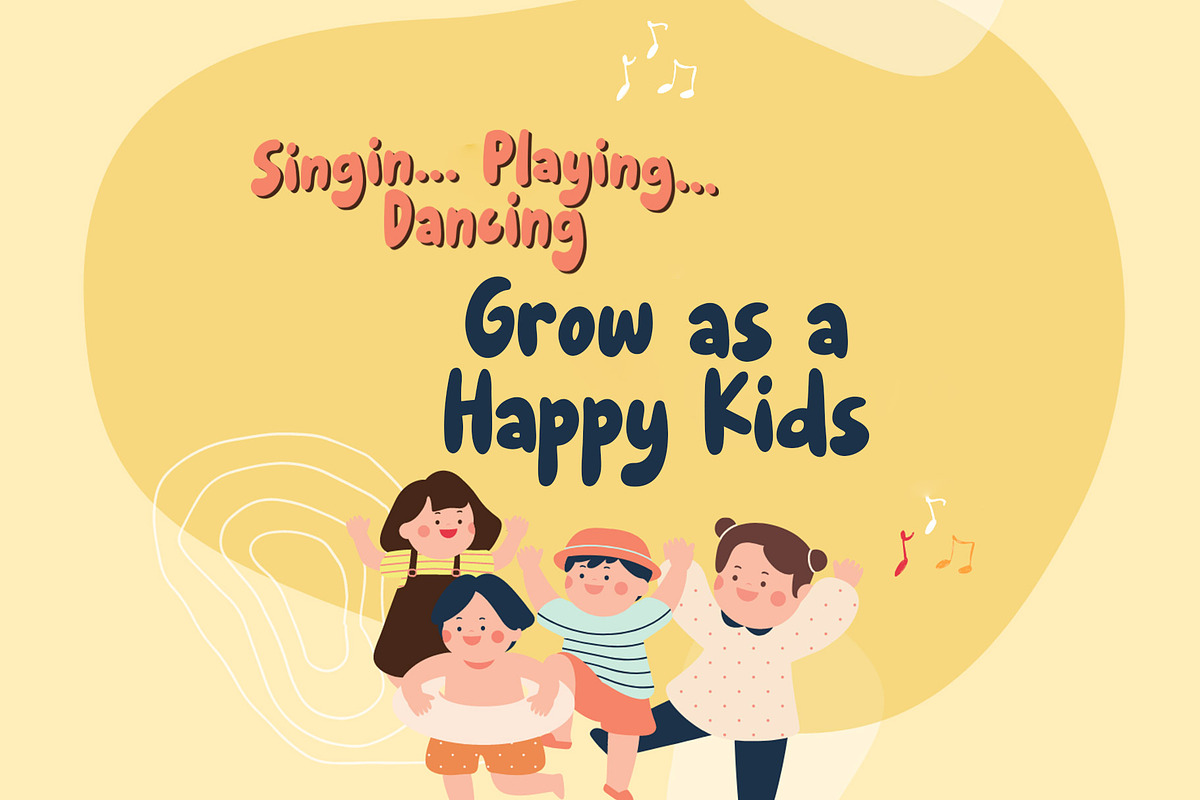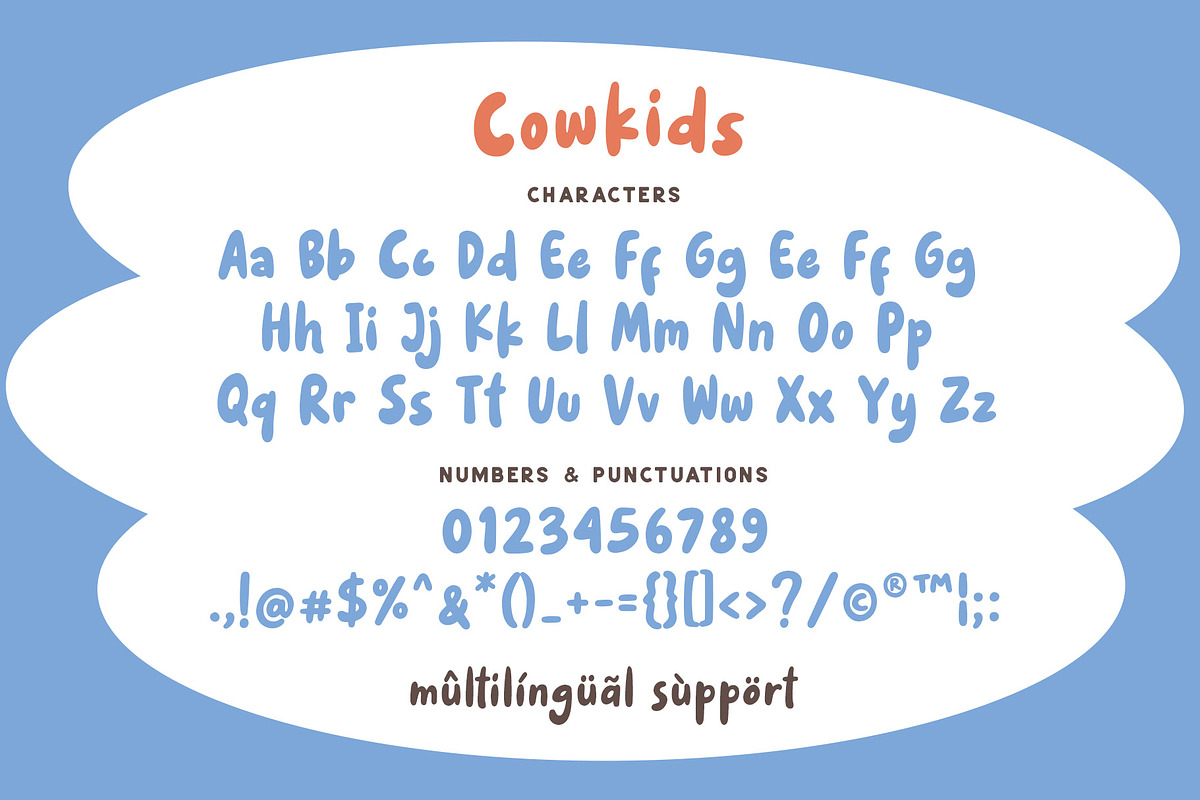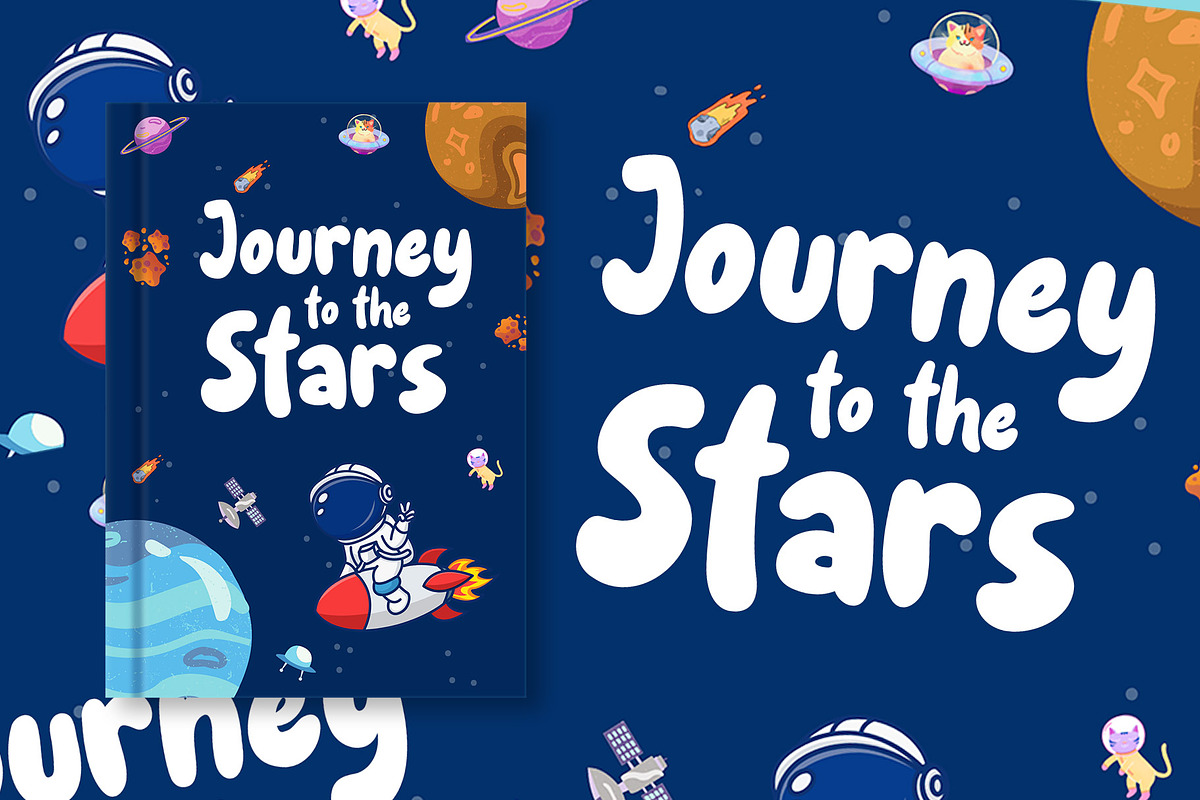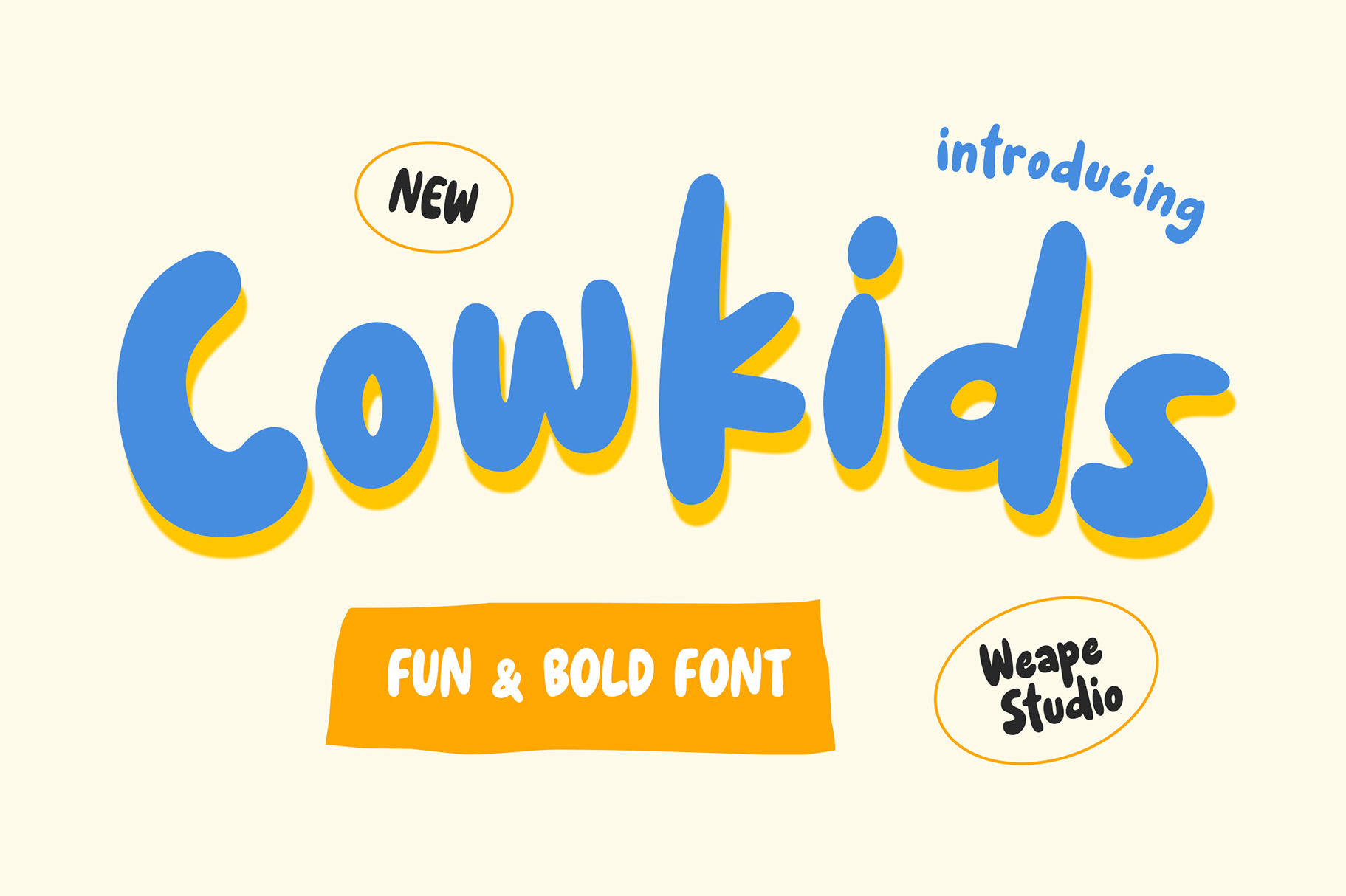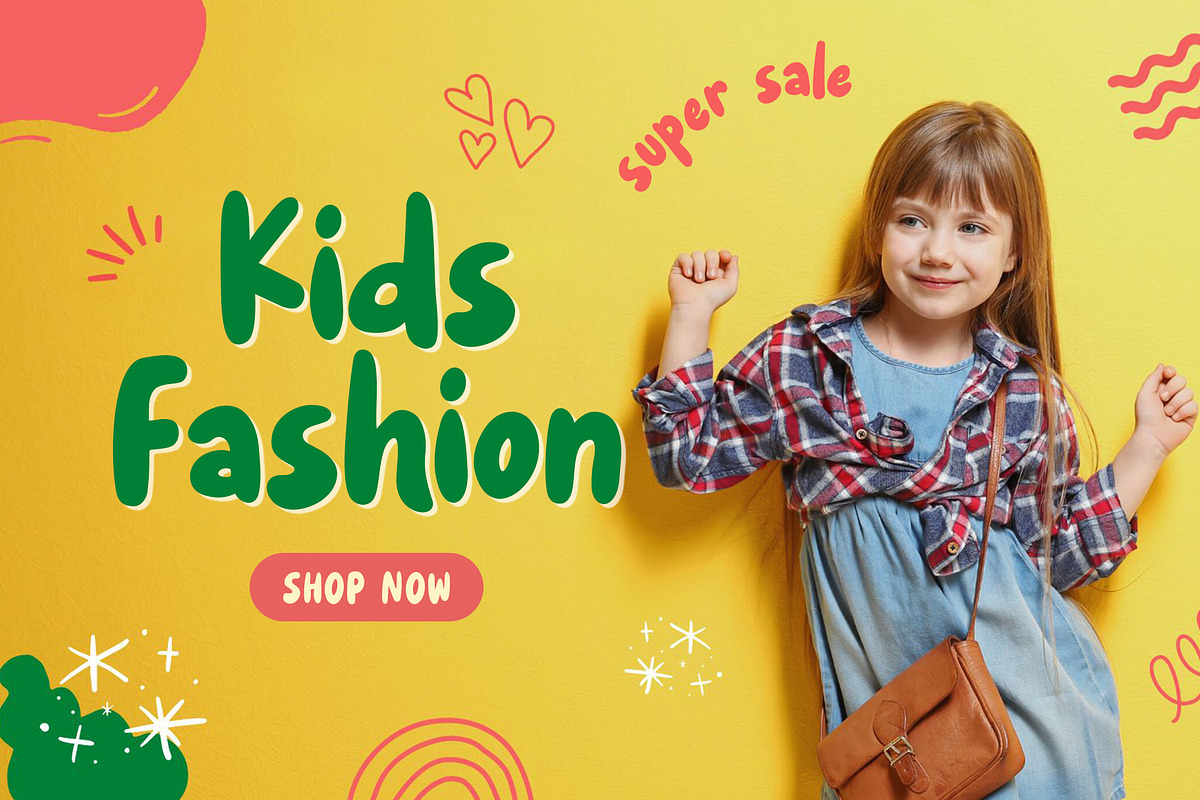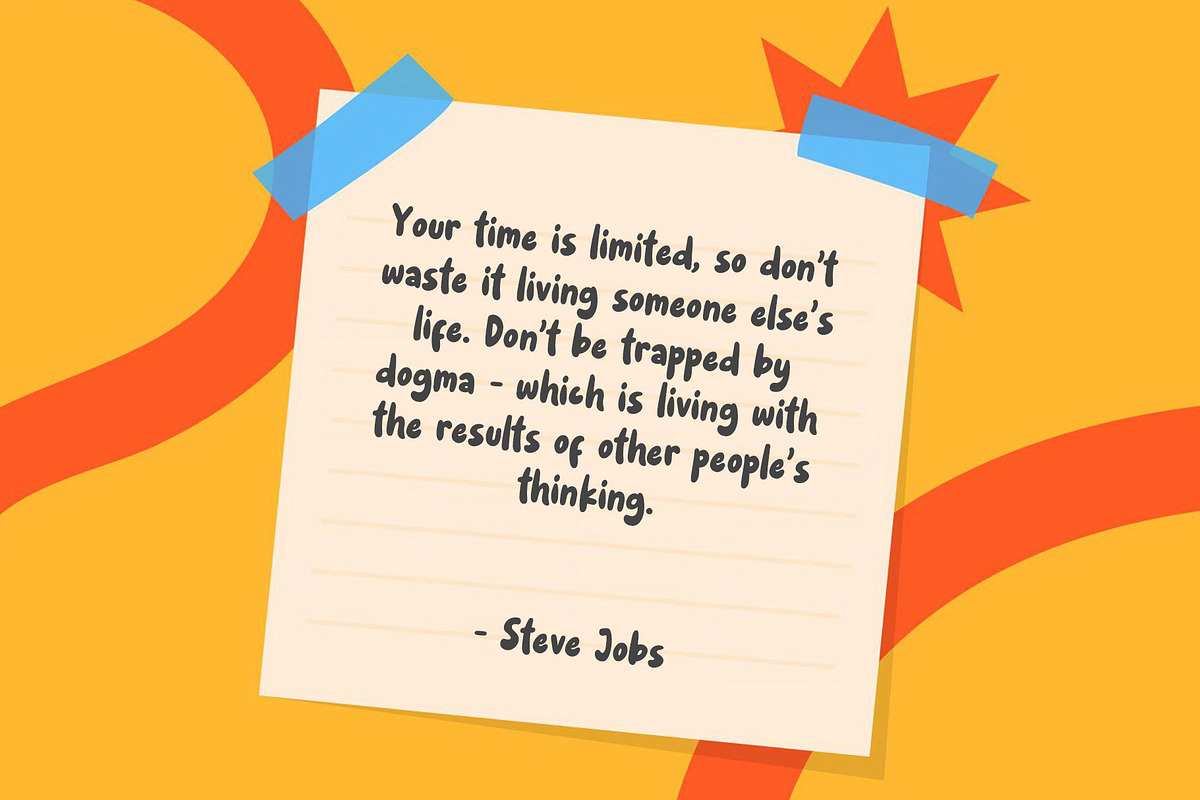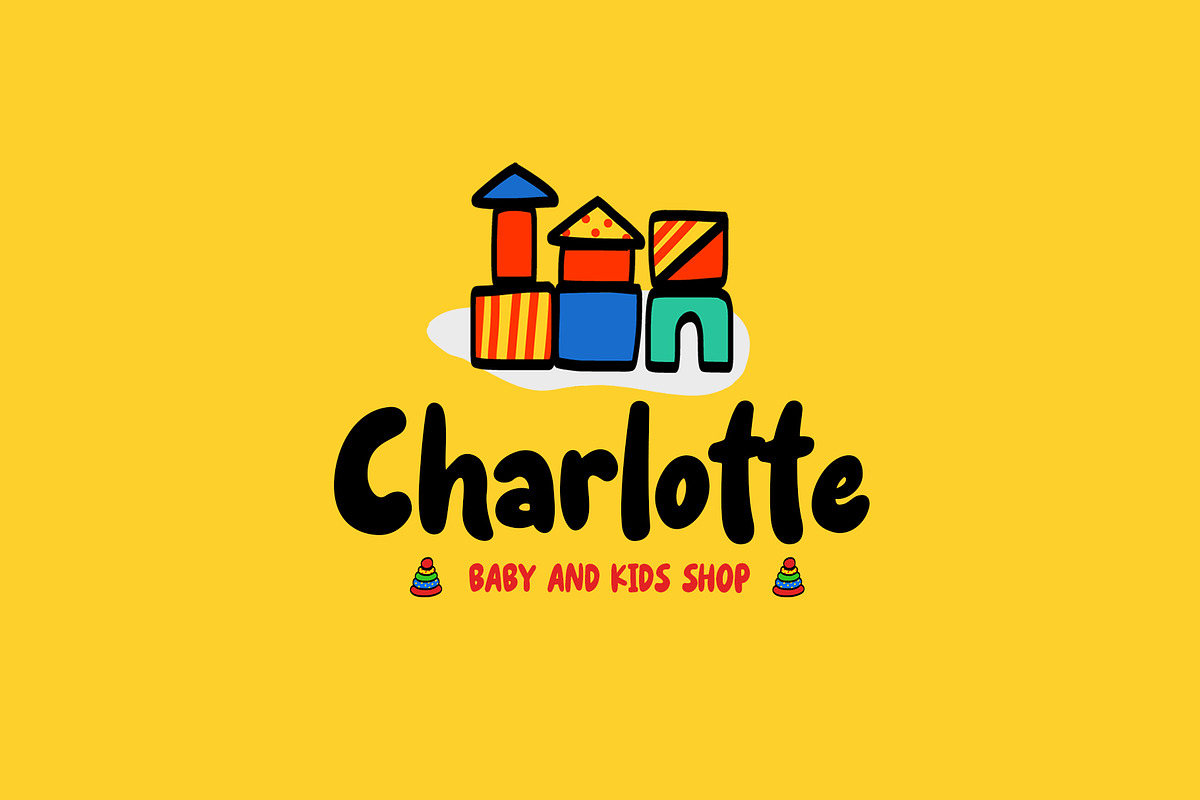
Cowkids - Fun and Bold Font
Introducing Cowkids - Fun and Bold Font. This font is a handwritten style font with a playful and bold design. It has a childlike quality to it, making it perfect for designs that need a touch of fun and whimsy. The thick strokes and curvy lines give the font a bold and lively appearance, while the handwritten quality adds a personal touch to any project.
With its fun and cheerful style, this font is perfect for adding a playful element to children's books, toys, packaging, or any project that needs a touch of childlike wonder.